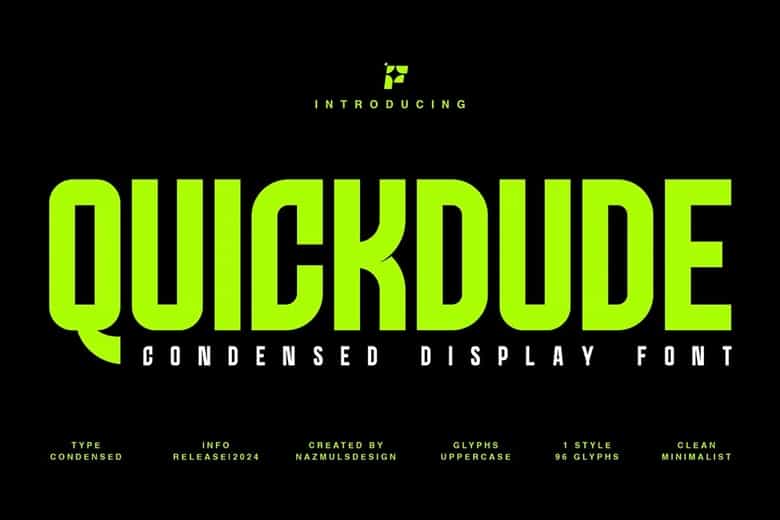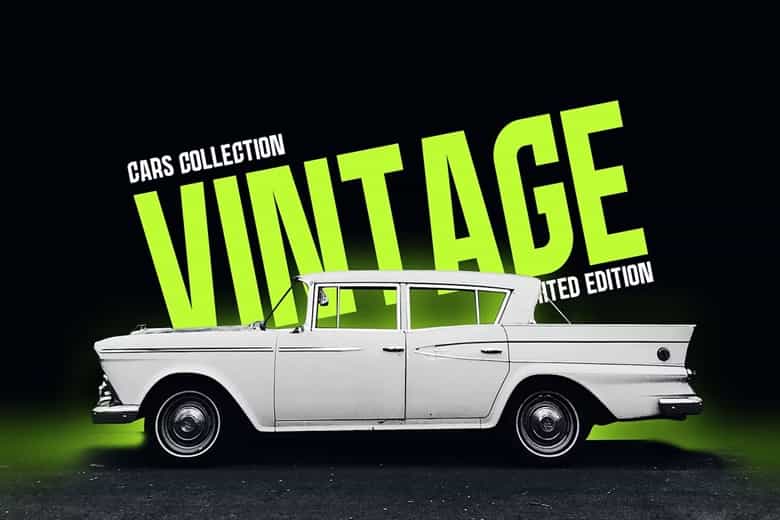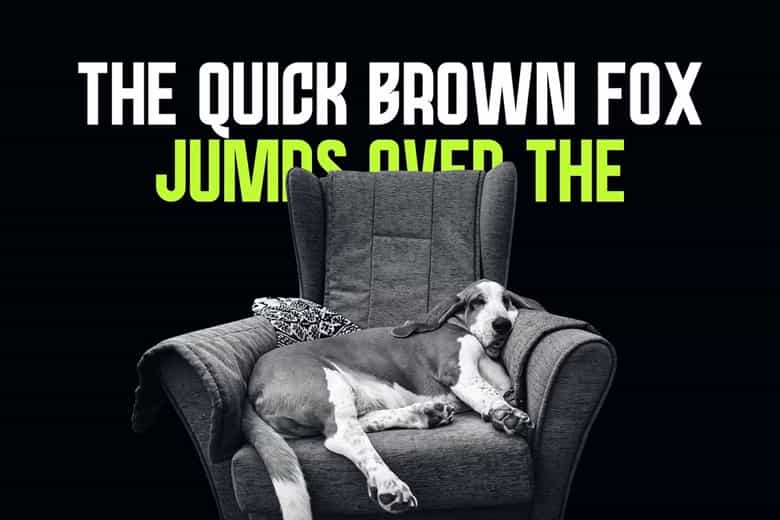
Quickdude is an elegant condensed display typeface of the modern age employed for cut-through kinetics. And being ideal for headlines, posters and branding, it provides sleek look that it free space and is on style. Quickdude instantly adds brightness and readability to any layout and can be used for Web and print designs.